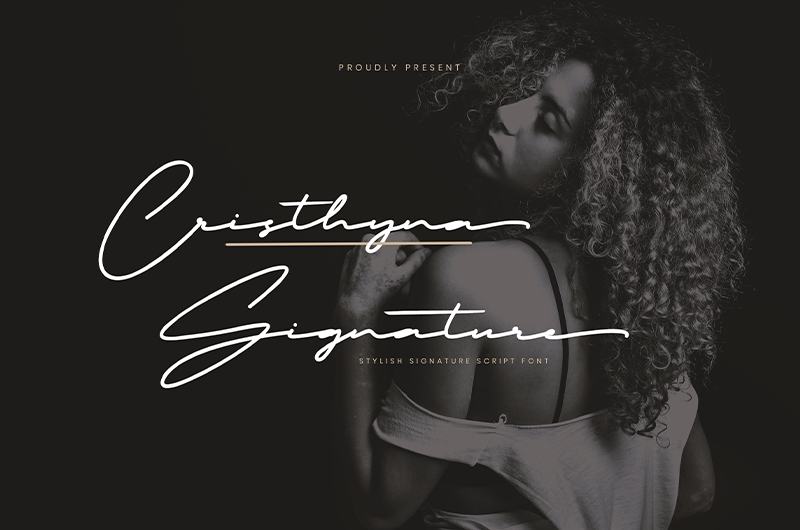
Cristhyna Signature is a handwritten script with a natural & stylish flow, this Typeface is an incredible addition to your font library. Perfect for business branding, wedding invitation, cosmetics, fashion, signature logo, magazine cover, advertising and these typefaces work well for many different aesthetics. By installing or using this font, you are agree to the Product Usage Agreement: - This font is PERSONAL USE ONLY. NO COMMERCIAL USE ALLOWED! - Link to purchase commercial license https://onedsgn.com/product/cristhyna-signature/ - If you need a custom license please contact us at namaracreativestudio@gmail.com - Any donation are very appreciated. Paypal E-Mail for donation : namaracreativestudio@gmail.com |